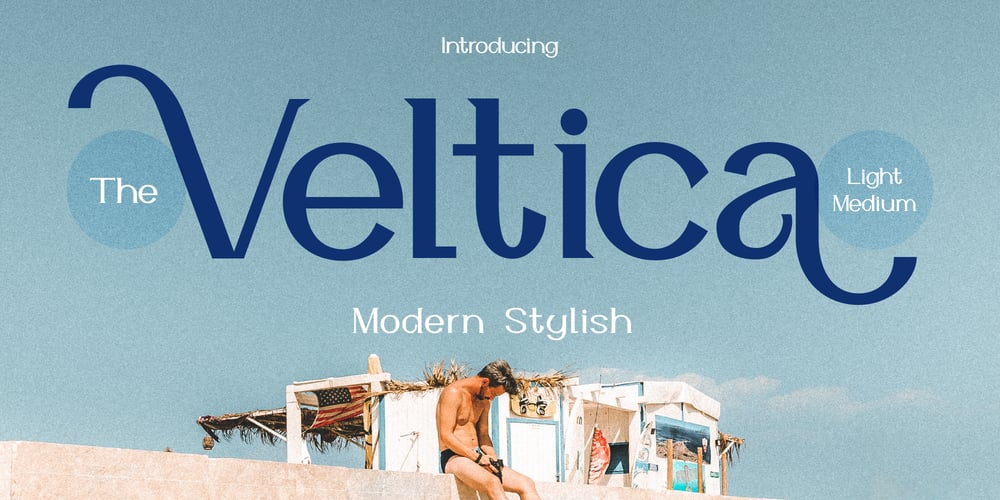
Veltica Font Family was designed by Eric Kurniawan and published by Burntilldead. Veltica contains 2 styles and family package options. Say hello to Veltica, our latest modern serif stylish! A classic, elegant and unique serif with modern twist, Veltica stands out with its light and medium style. Its clean lines and elegant curves bring a touch of sophistication to any design project, making it ideal for everything from branding to editorial layouts.Features: A – Z set Number Punctuation Alternate Ligature Multilingual